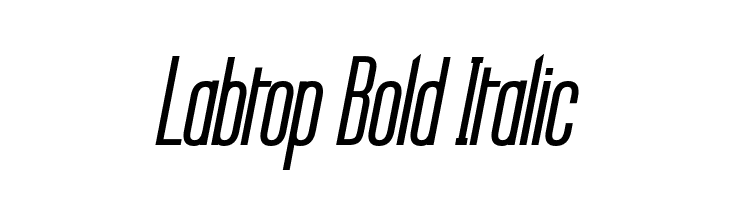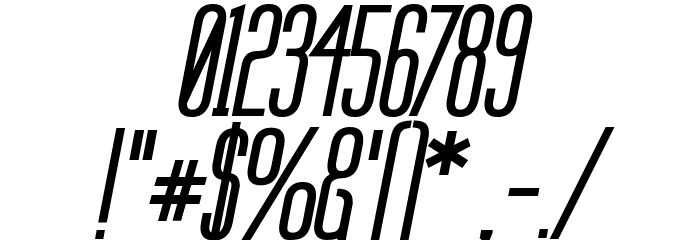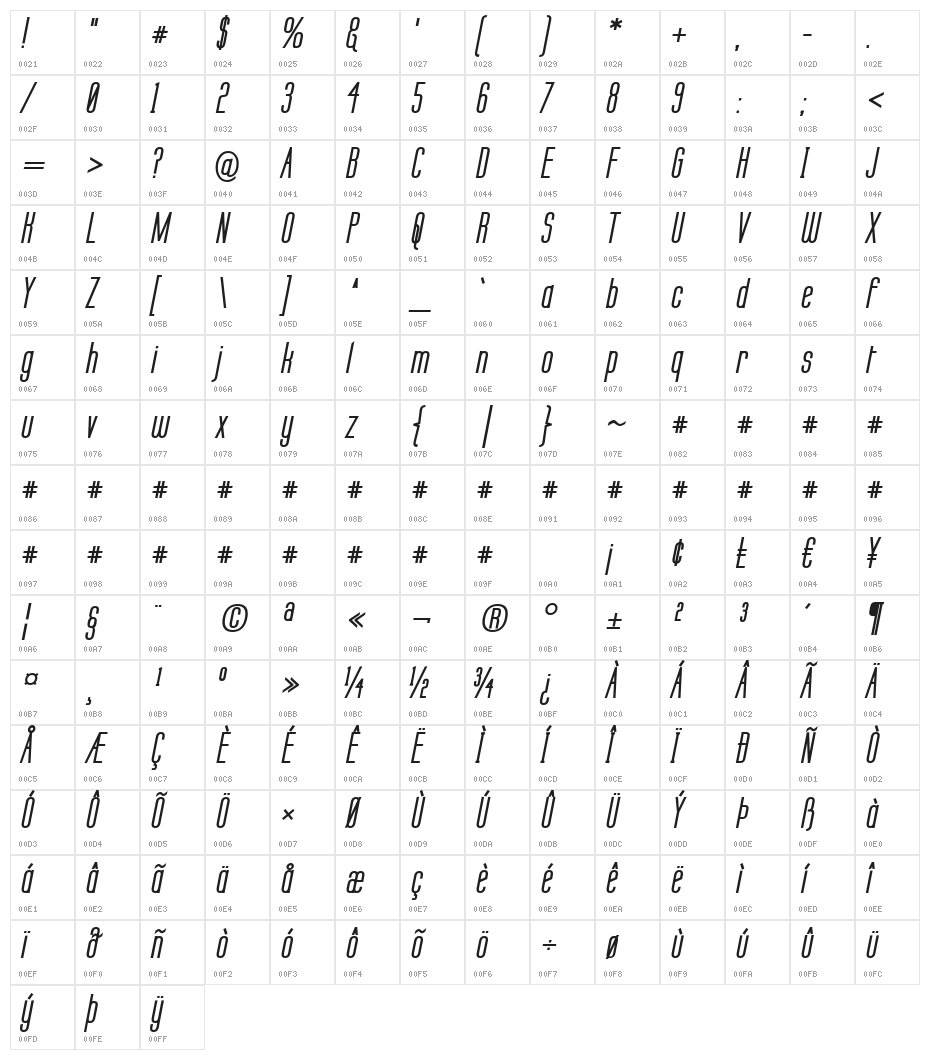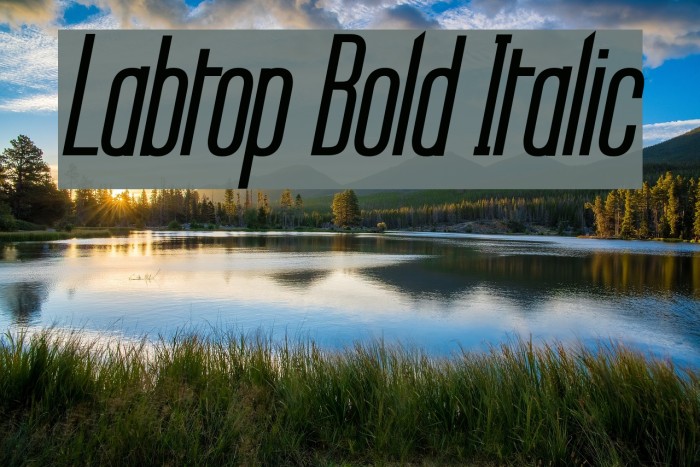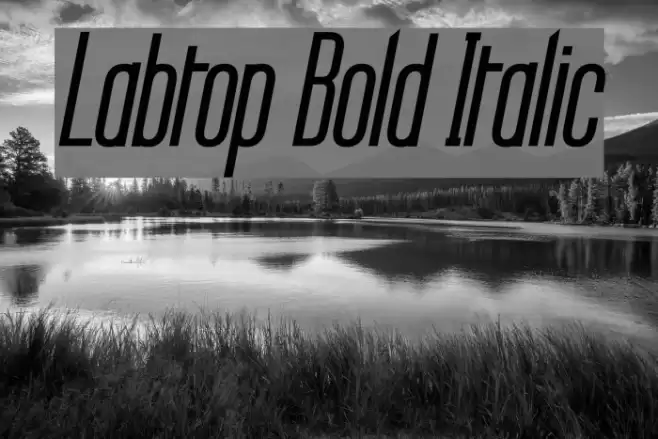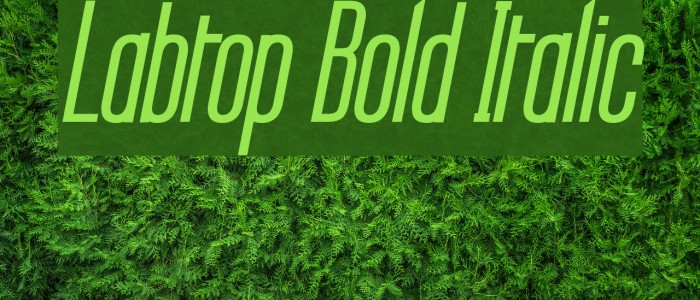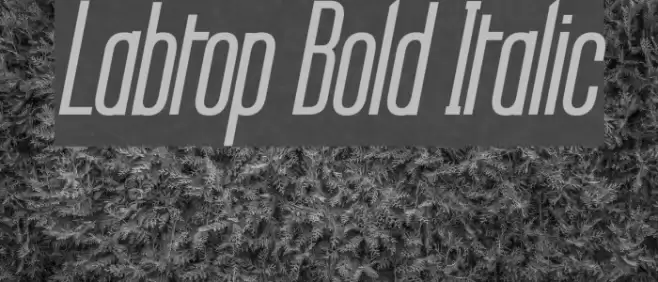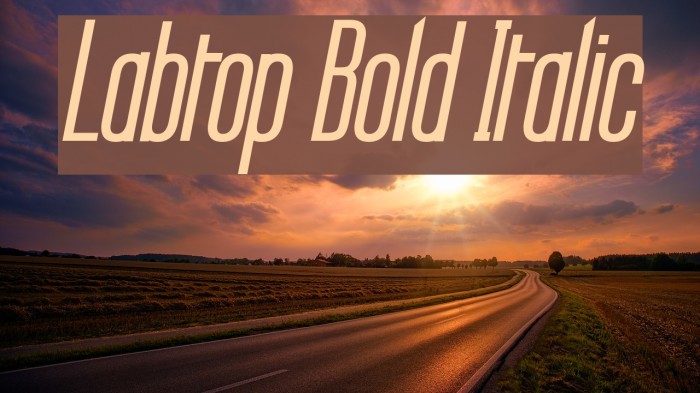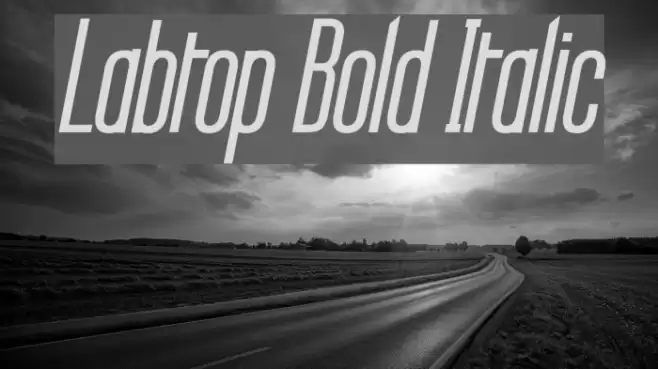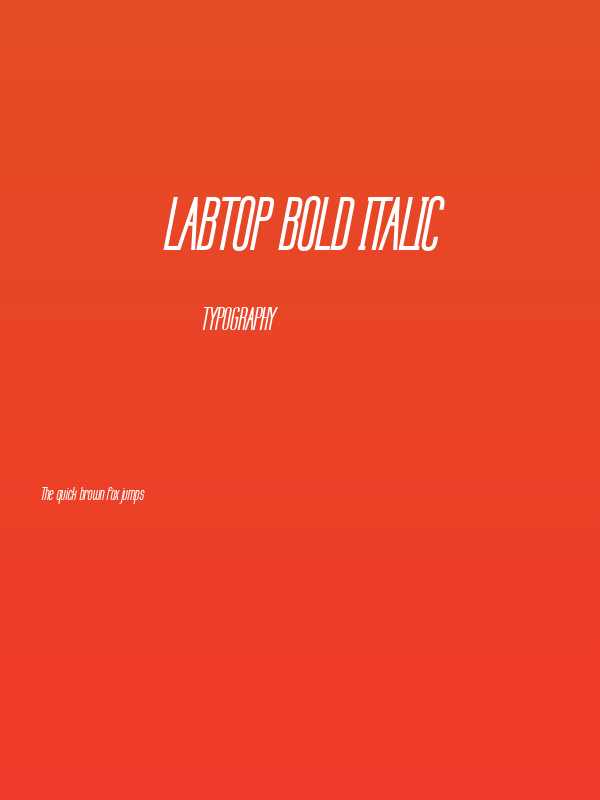
Labtop Bold Italic Font
Labtop Bold Italic Description
This font exhibits a bold and italicized style, characterized by its elongated and slightly condensed letterforms. The uppercase and lowercase letters maintain a consistent slant, adding a dynamic and energetic feel to the text. The numerals and special characters follow the same stylistic approach, ensuring uniformity across all glyphs. The strokes are thick, contributing to the bold appearance, while the italic angle enhances the sense of motion and modernity. This font is well-suited for projects that require a strong visual impact and a contemporary aesthetic.
| Proposed Projects | Ideal for branding, advertising, poster design, and any project needing a bold, modern touch. |